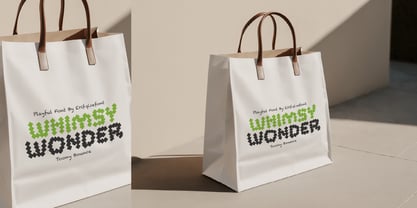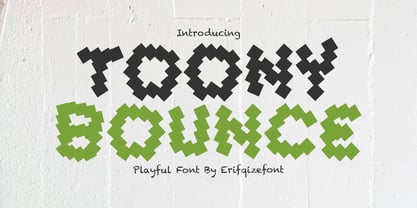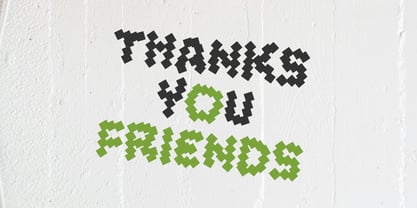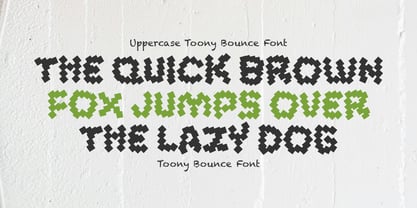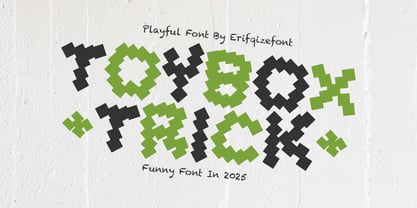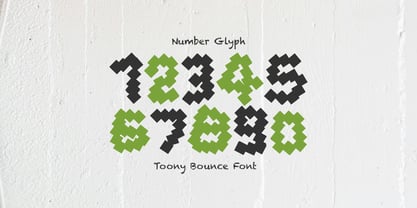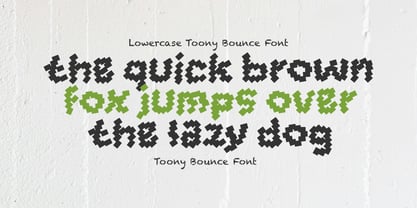
Toony Bounce
von Erifqizefont
Die Schriftfamilie Toony Bounce wurde von Eka Rifqi Setiawan entworfen und von Erifqizefont veröffentlicht. Toony Bounce enthält 1 Stile.
Toony Bounce is a fun and energetic display font packed with quirky personality. Its unique zigzag shapes give each letter a bouncy, dynamic feel—perfect for grabbing attention and adding a joyful vibe to any design. Ideal for kids’ posters, toy packaging, playful branding, or anything that needs a bold and cheerful twist.
Crafted by Erifqizefont, Toony Bounce brings a touch of imagination and movement to your creative projects.
Designer: Eka Rifqi Setiawan
Herausgeber: Erifqizefont
Foundry: Erifqizefont
Eigentümer des Designs: Erifqizefont
Über Erifqizefont
Introducing Erifqizefont, a Foundry led by Eka Rifqi Setiawan. Originating from Eka's experience as an Icon Designer, Erifqizefont specializes in bold, symmetrical Display Fonts with futuristic elements, occasionally exploring retro and whimsical styles. Based in Indonesia, Erifqizefont integrates the nation's cultural heritage into its designs. As a sole proprietor, Eka focuses on crafting superior, unique fonts, setting Erifqizefont apart in the industry.